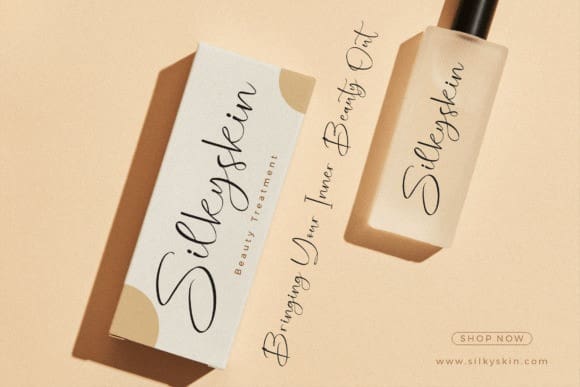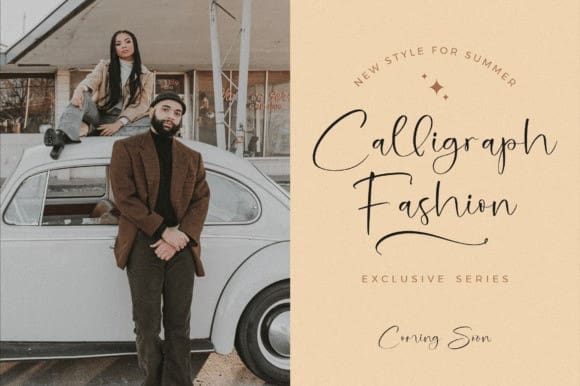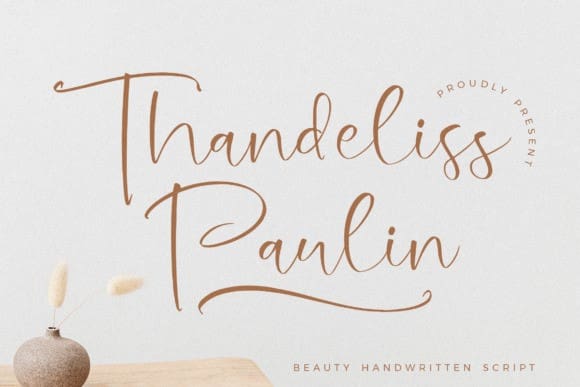
Thandeliss Paulin Font
Thandeliss Paulin Font is an enchanting handwritten font. This versatile script font has a wide spectrum of applications ranging from greeting cards to headlines and is guaranteed to add a romantic feel to your next project.